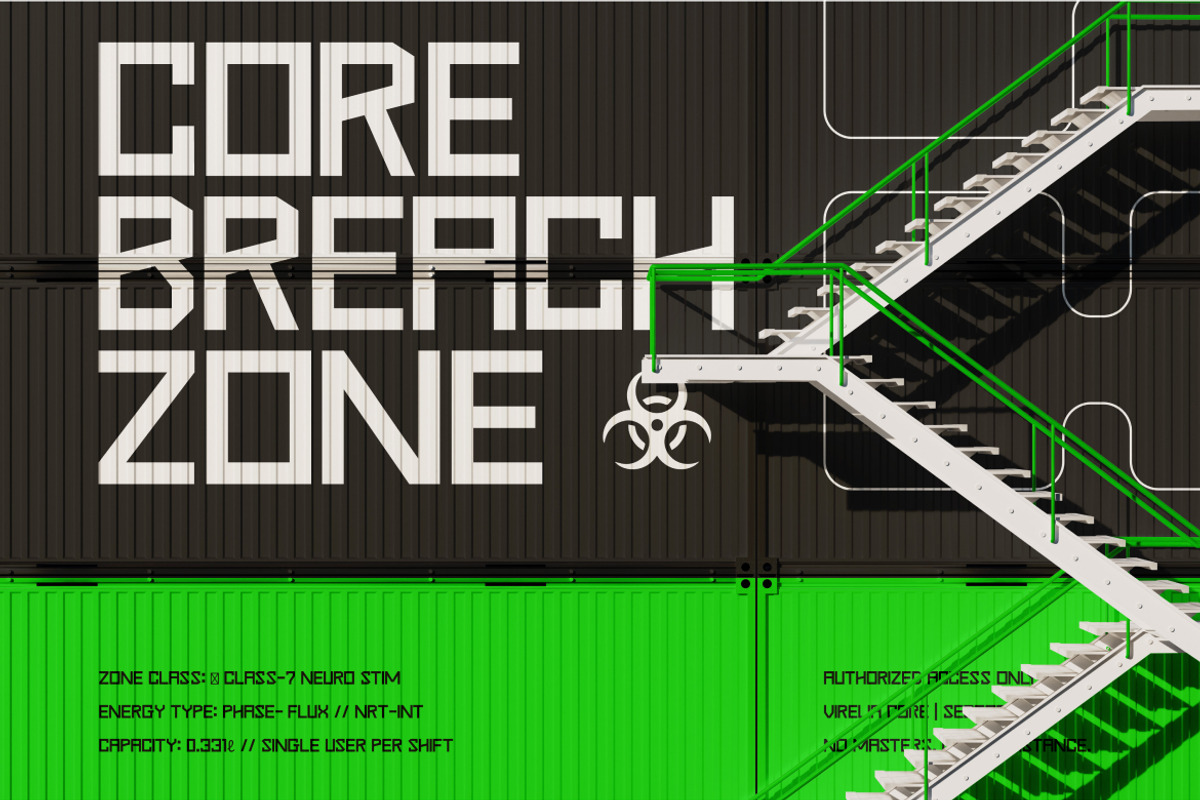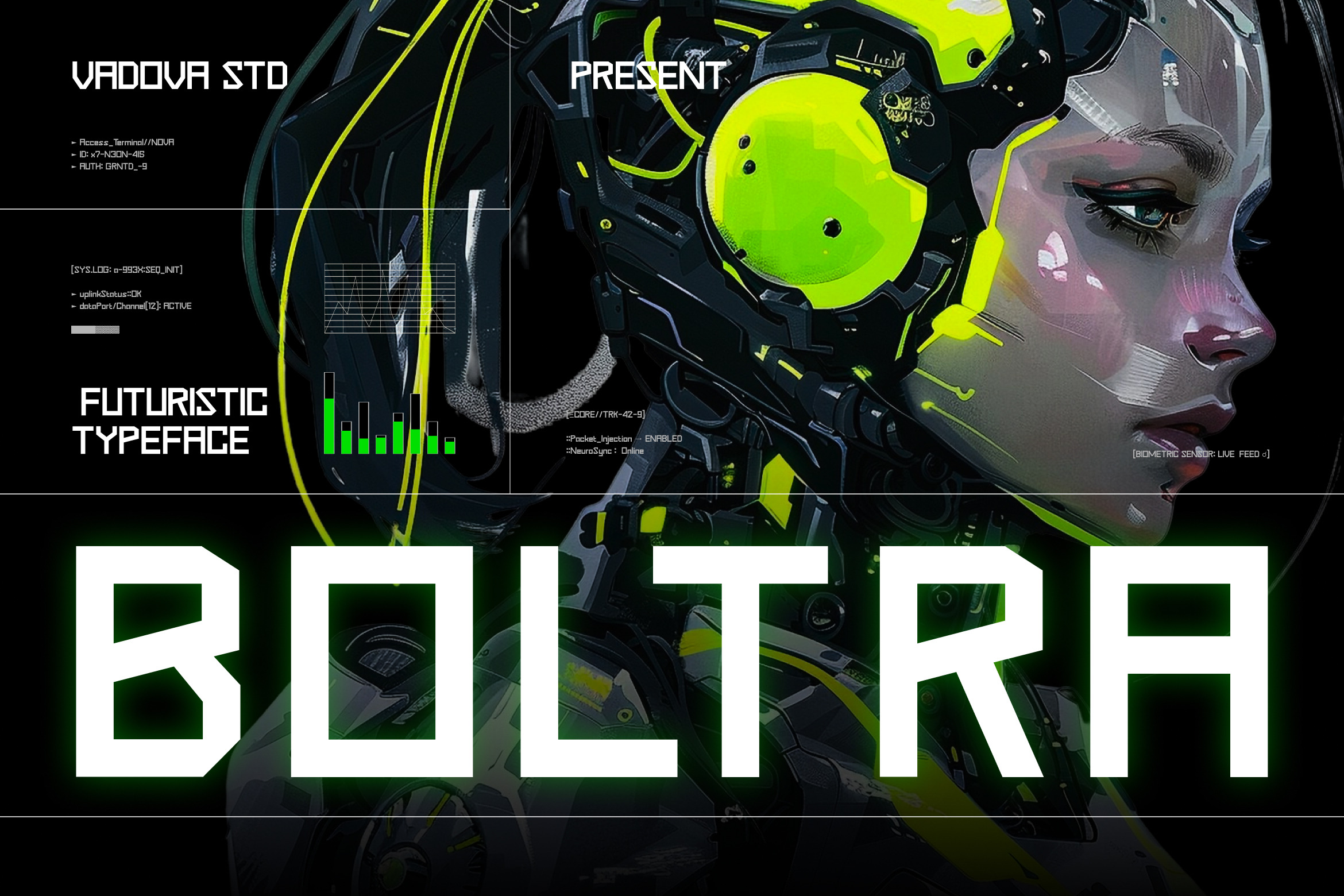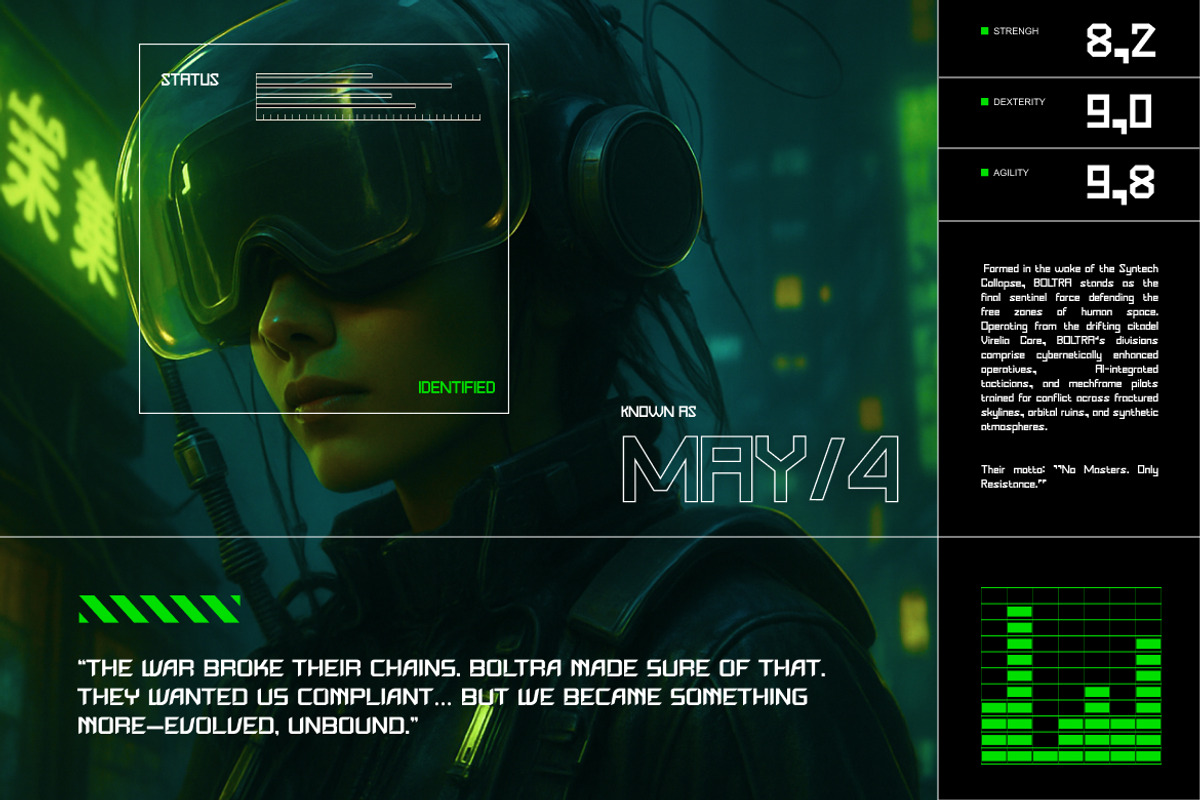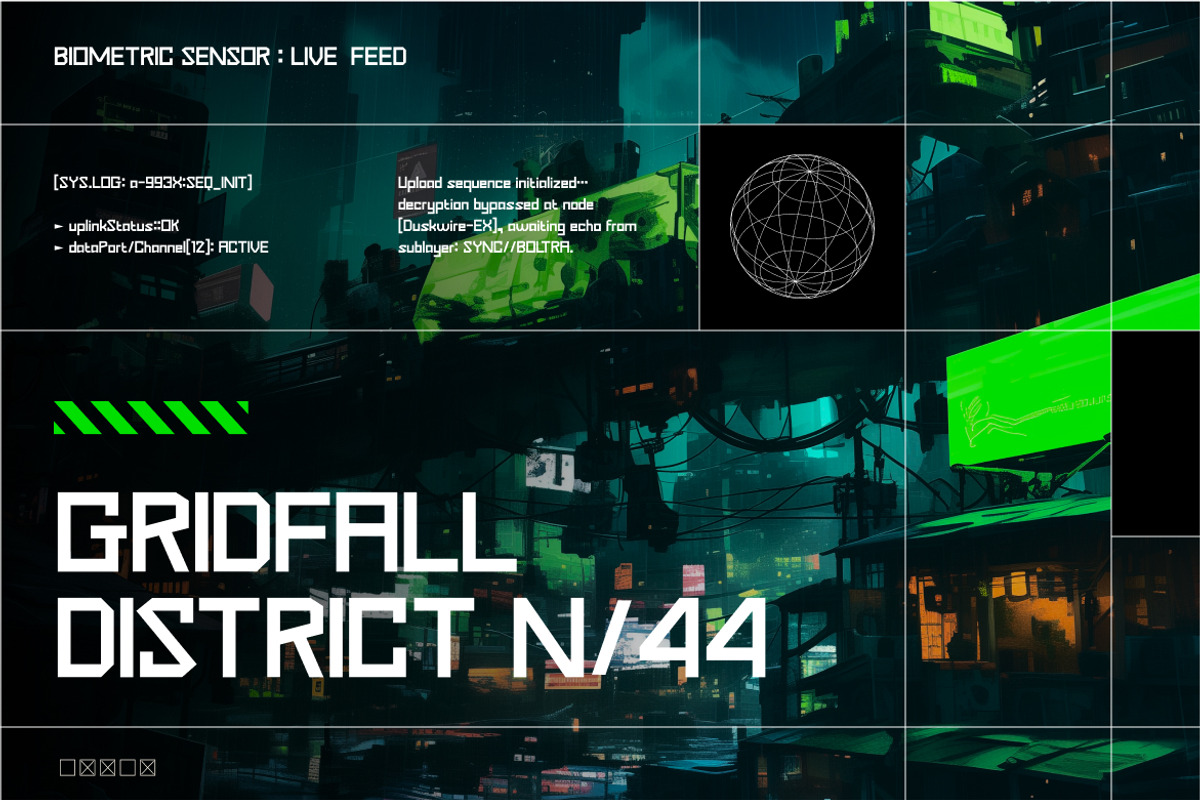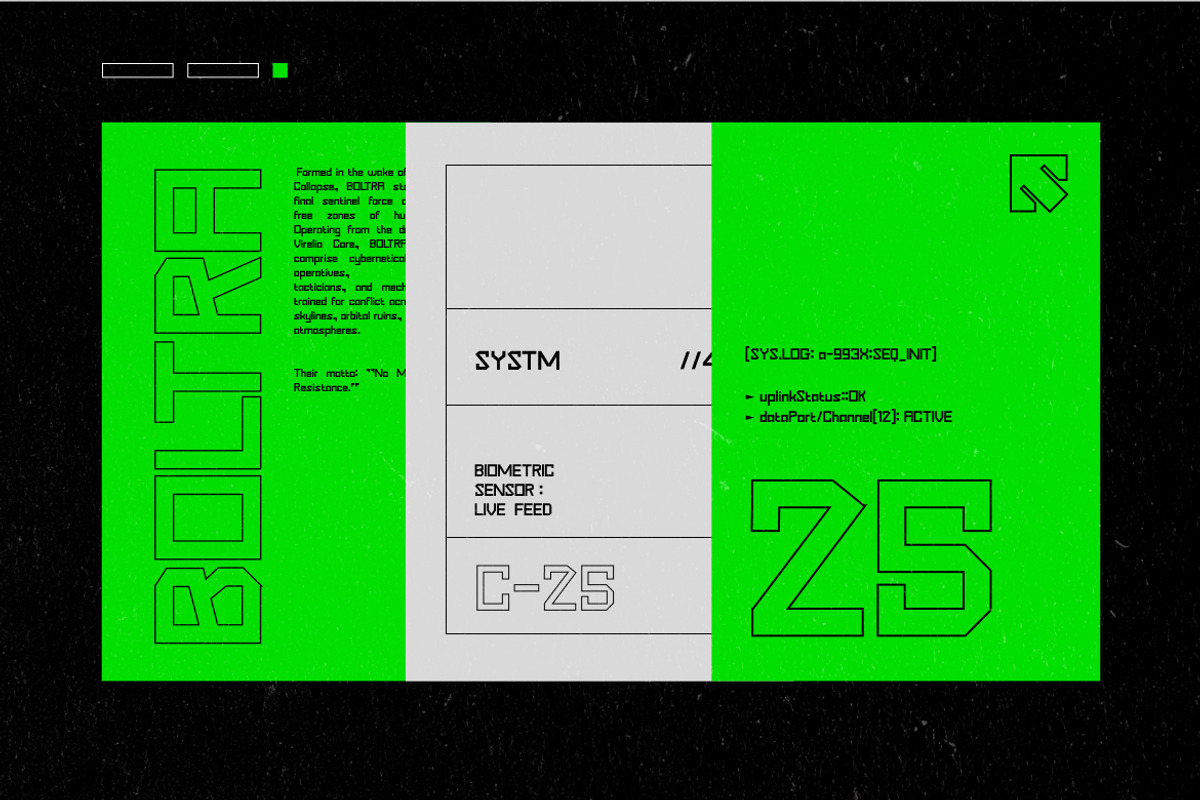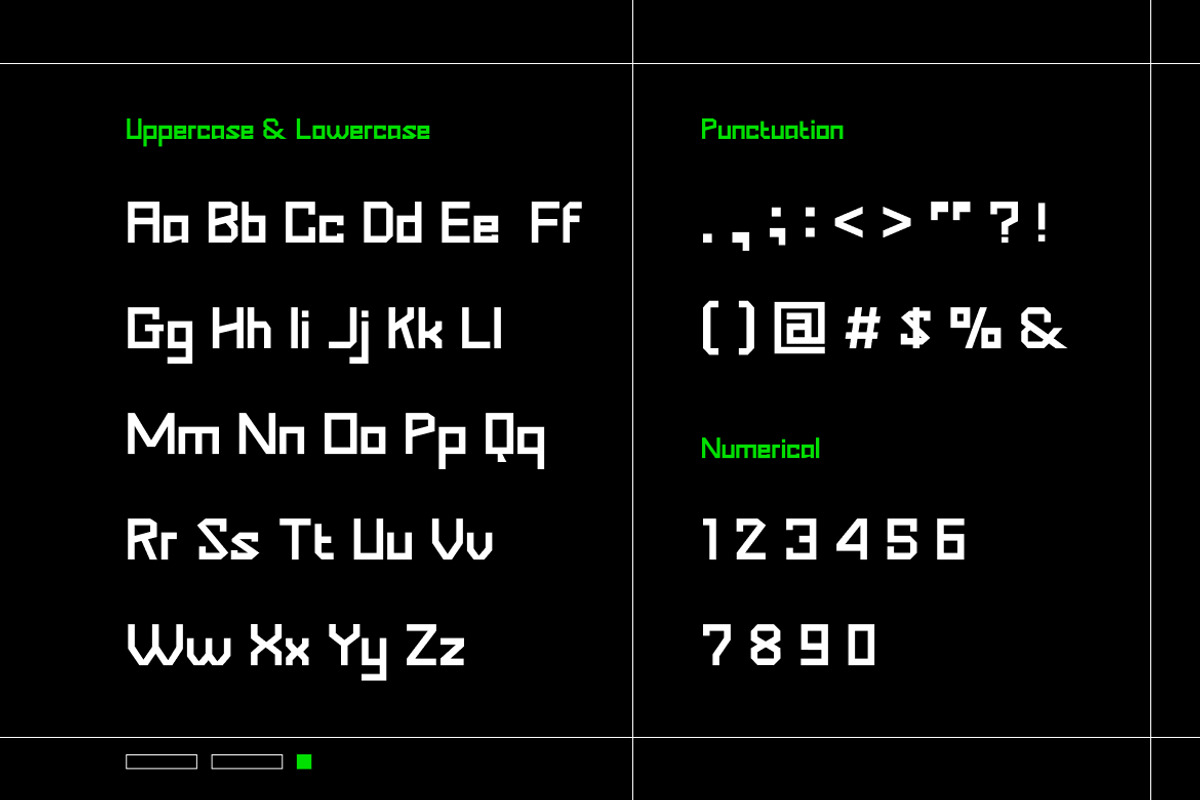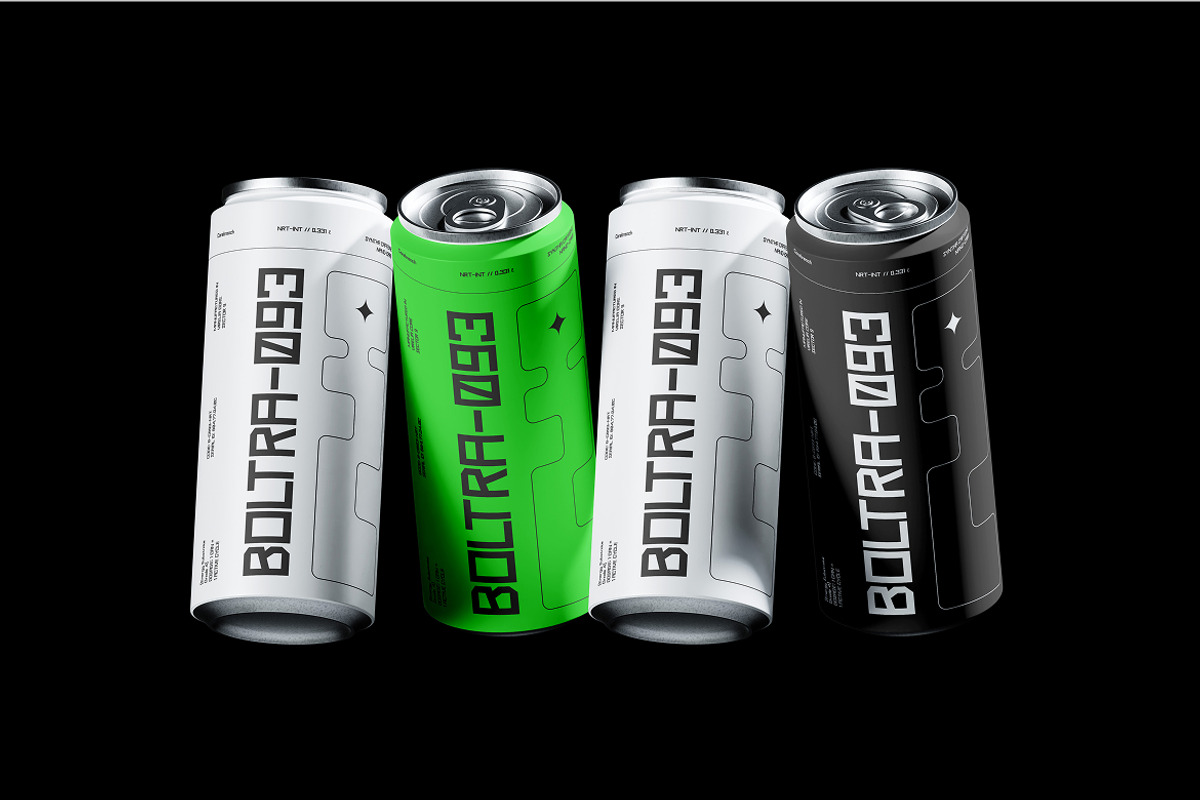
Boltra – Futuristic Display Typeface
Boltra is a futuristic display font inspired by the visual energy of cyber technology, AI systems, and sci-fi architecture. Its angular construction and geometric tension bring a strong sense of innovation and digital aggression, ideal for modern creators pushing the edge of design. The structure of each letter combines sharp mechanical precision with neon aesthetics, producing a striking and immersive typographic experience.
Boltra delivers a commanding visual rhythm that resonates with the language of the future — a typeface built for esports visuals, cyberpunk branding, AI concepts, and futuristic interfaces. Its modular construction and compact grid form make it equally powerful in logos, UI titles, and high-tech editorial layouts. With glowing strokes and industrial geometry, Boltra bridges digital expression and technological rebellion.
Futuristic angular construction with cyber-grid structure
Optimized for display and digital typography
Includes uppercase, lowercase, numerals, and punctuation
Designed with strong visual hierarchy and precision spacing
Bonus Functional Highlights:
Works seamlessly for neon or glowing text effects
Excellent readability in dark-themed or UI environments
Ideal for sci-fi gaming titles and robotic interfaces
Perfect for tech branding, AI labs, and cyber aesthetics
Supports multilingual characters
Relevance and Use Cases is perfect for sci-fi game titles, cyberpunk posters, futuristic branding, tech startups, robotics and AI campaigns, digital exhibitions, esports visuals, and UI/UX dashboards.
Step into the future with Boltra — a cutting-edge futuristic display font built for creators shaping tomorrow’s digital world.